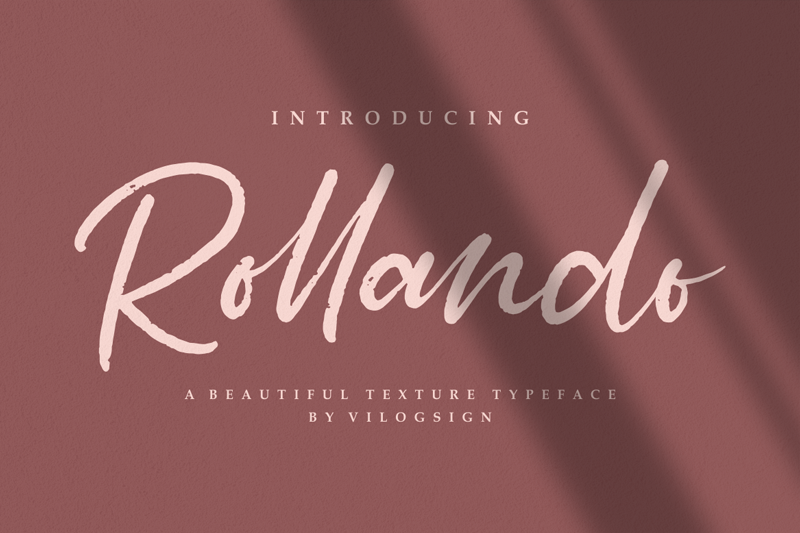
Font name: | Rollando |
Author: | Nur Kholis |
GREAT NEWS!!! Introducing the new "Rollando" a beautyful texture typeface. A beautiful vintage script font with alternative and 37 ligatures to complete your needs. With built in Opentype features, this script comes to life as if you are writing it yourself. This font is very good with additional alternatives like multilingual support. With texture make this font look natural, vintage but classic and elegant, very suitable to make a branding, magazine, fashion, quotes, logo, packaging, and other. Link to purchase full version and commercial license https://www.creativefabrica.com/product/rollando/ https://fontbundles.net/vilogsign/513925-rollando-a-texture-typeface-font visit my $1 deal : https://thehungryjpeg.com/product/3726365-rollando-a-texture-typeface-font Please follow my instagram for my design : https://www.instagram.com/nur_kholis92/ |